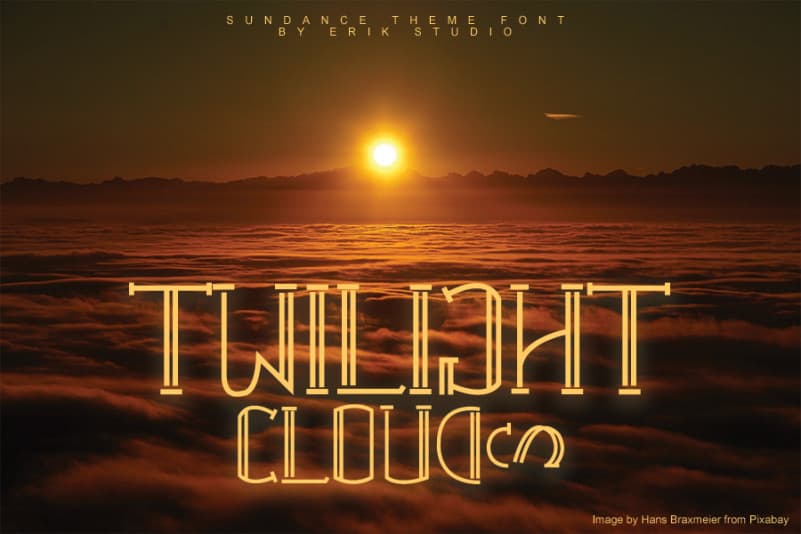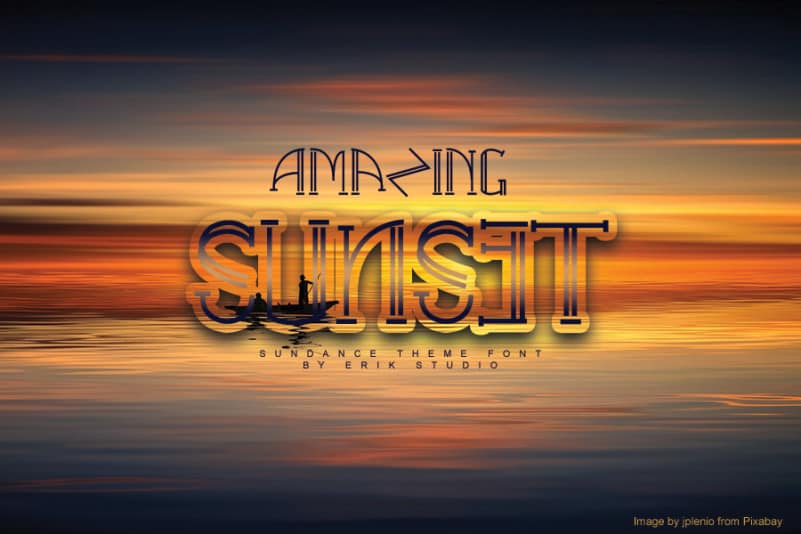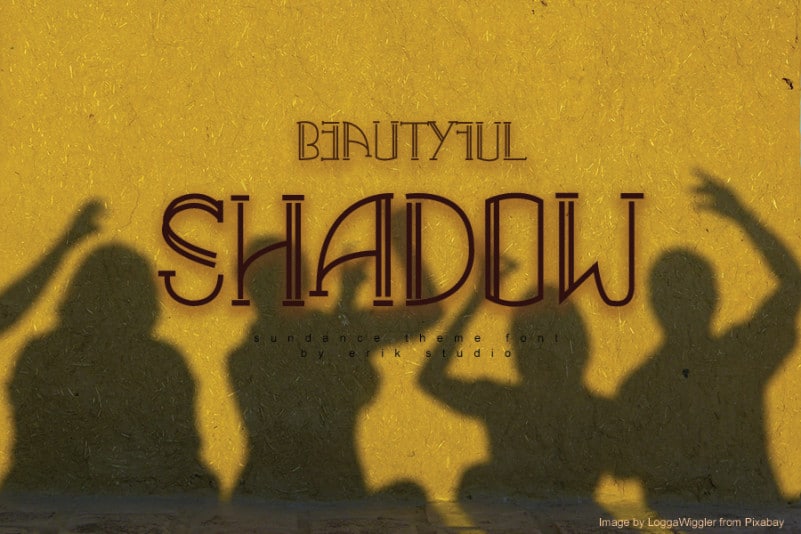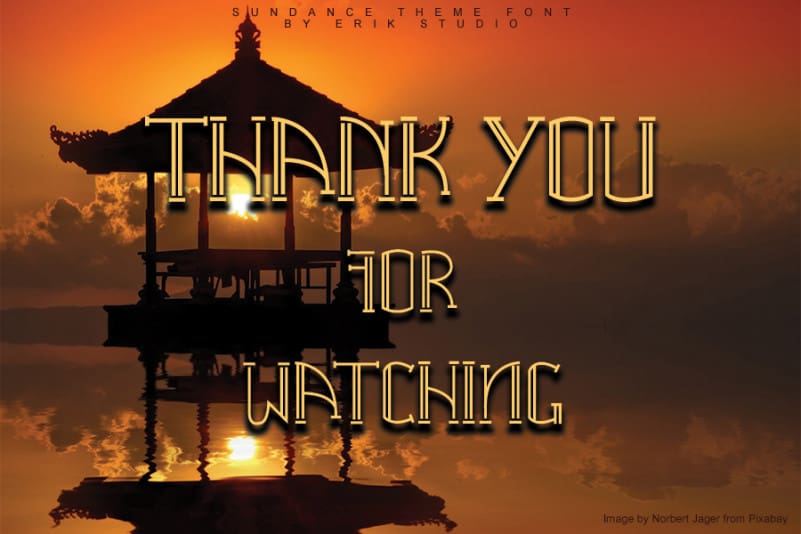
Sundance Display Font
Sundance Display Font is a bouncy and unique display font. It will add a fresh and contemporary touch to your designs. Add this unique display font to each of your creative ideas and notice how it makes them stand out!